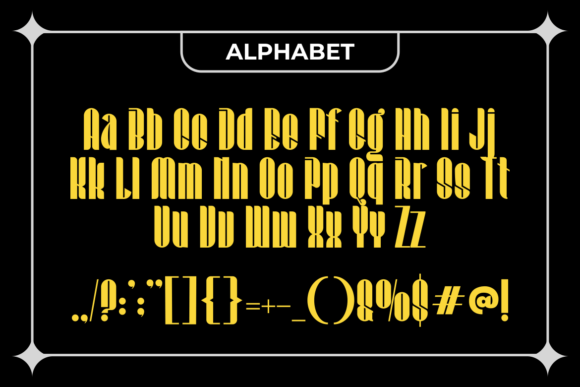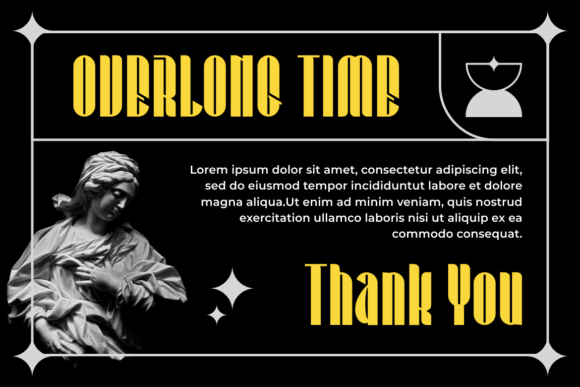
Introduction to Antiqurias Font
Do you remember the moment when a font can elevate your entire creative project? For designers, it’s a game-changer. A single font can make or break the aesthetic of your branding project. And, we’re excited to introduce our new product – **Antiqurias Font** – a modern display font that’s bold, authentic, and perfect for any creative endeavor.
Whether you’re working on a logo, t-shirt design, or an esports branding project, Antiqurias Font is an outstanding choice. Its high quality and versatility make it an excellent design resource for any creative project. Plus, it’s available for free download, allowing you to experiment with different designs without any restrictions.
With its transparent background and sleek design, Antiqurias Font is sure to take your branding project to the next level. Stay tuned to learn more about this fantastic font and discover why it’s a valuable addition to any designer’s toolkit.
Key Features of Antiqurias Font
- High-quality typography with precise letterforms and elegant flourishes, making it perfect for creative projects.
- Includes multiple font weights and styles, providing flexibility for designers to create unique and visually appealing designs.
- Perfect for use in a wide range of creative projects, from branding and marketing materials to editorial and publishing projects.
Honest Review: Antiqurias Font
I recently had the chance to play around with the Antiqurias Font and I must say, it’s a great addition to any designer’s toolkit. This high-quality font is perfect for any creative project that requires a touch of elegance and sophistication.
- ✨ Elegant and sophisticated design aesthetic
- ⚠️ Limited character set, which may not be suitable for extended text
- ⚠️ May not be as versatile as some other fonts, particularly for bold or italic text
Overall, I’m impressed with the Antiqurias Font and think it’s a great choice for designers working on creative projects. With its elegant design aesthetic and transparent background, it’s a valuable design resource that’s definitely worth checking out.
Antiqurias Font: A High-Quality Design Resource
The Antiqurias Font is perfect for:
Creating invitations, menus, and other event-related materials
Designing logos, branding materials, and other marketing collateral
Creating digital products, such as ebooks and online courses